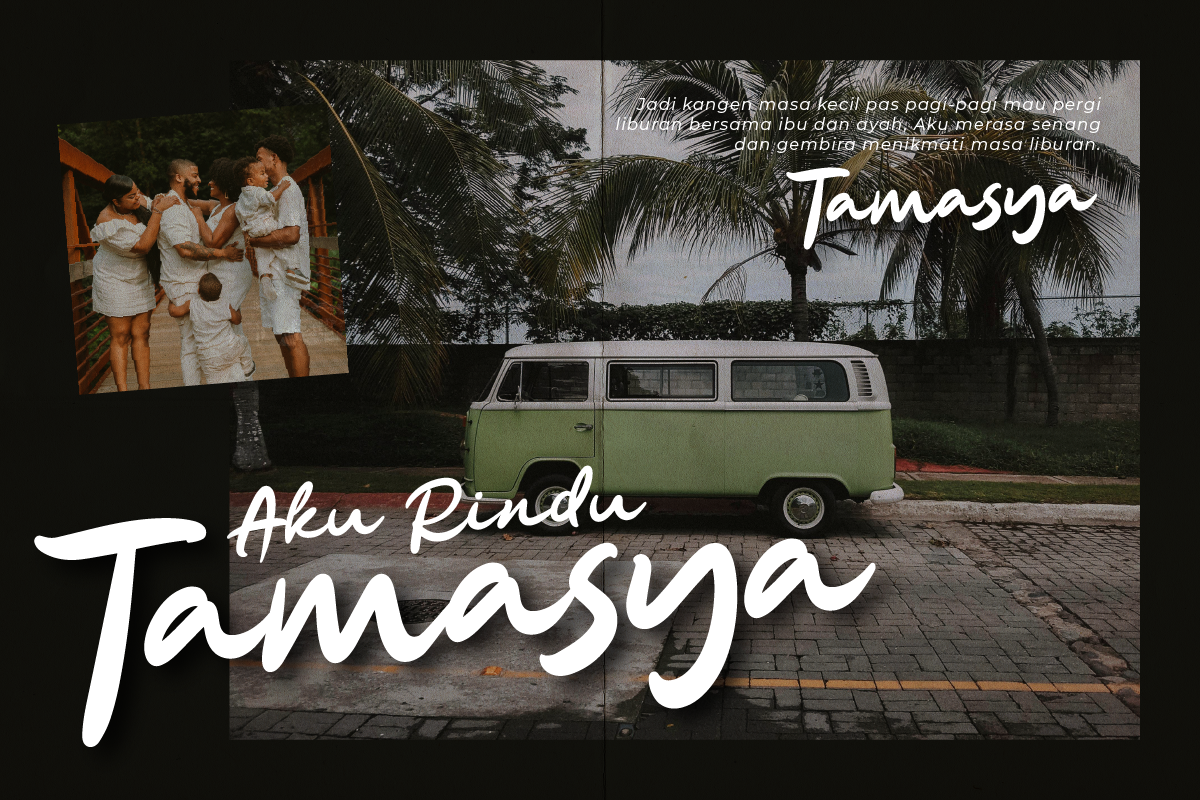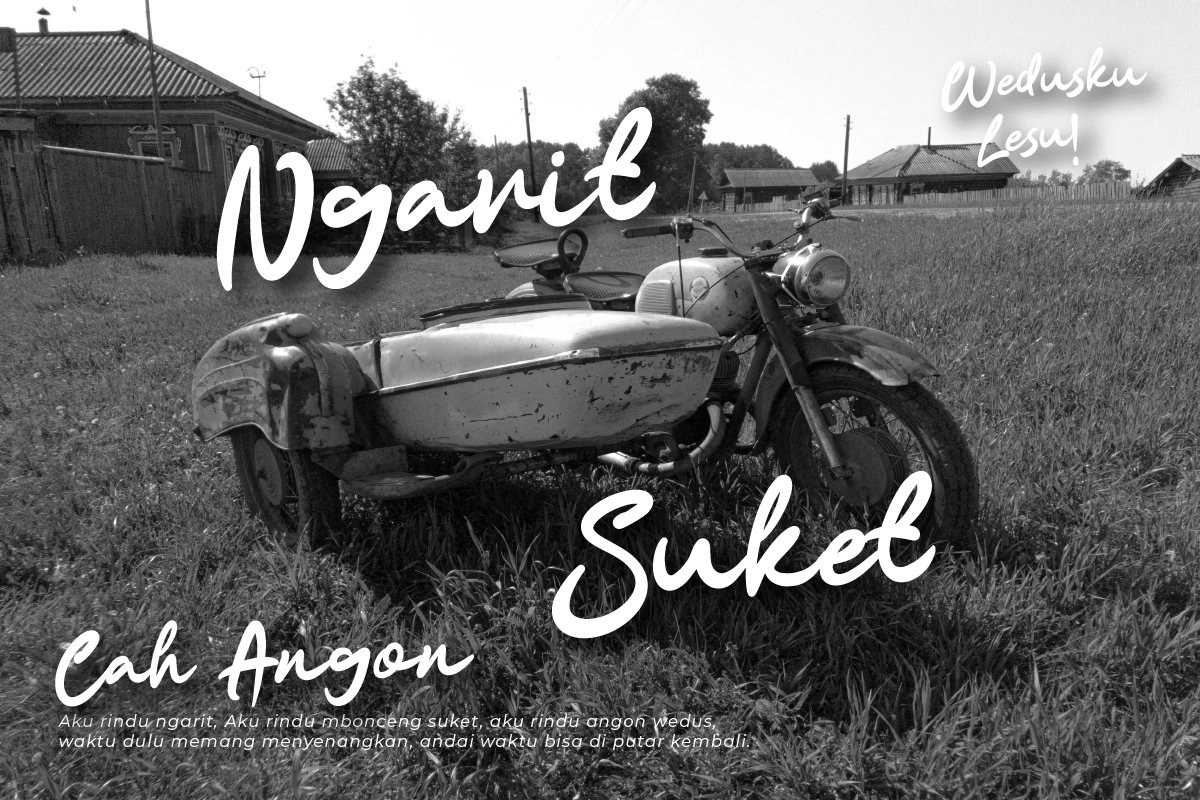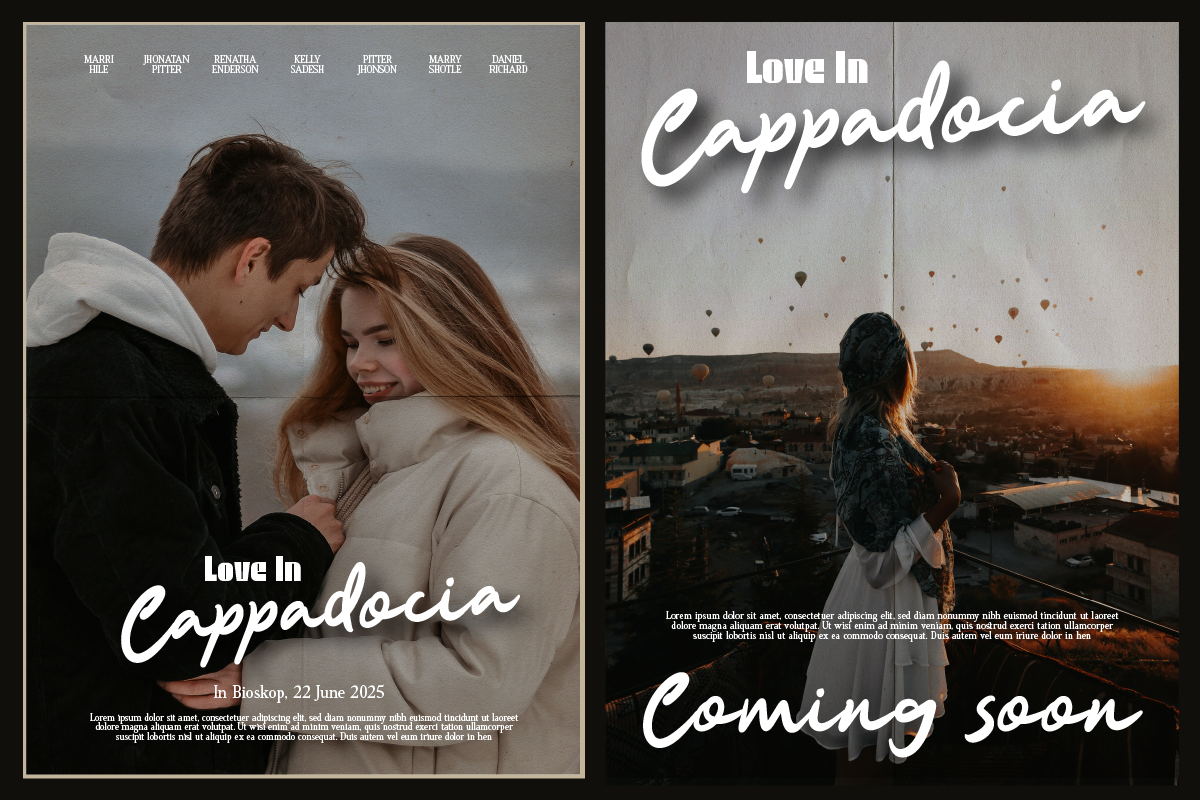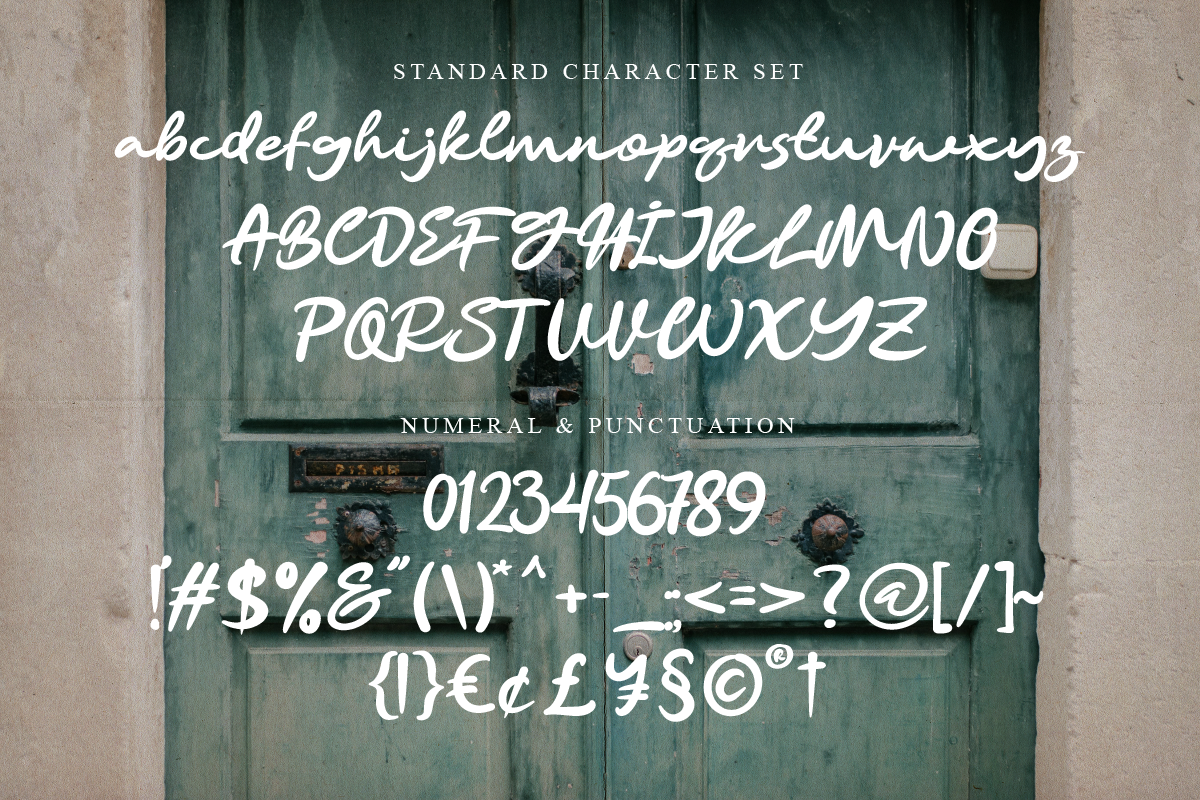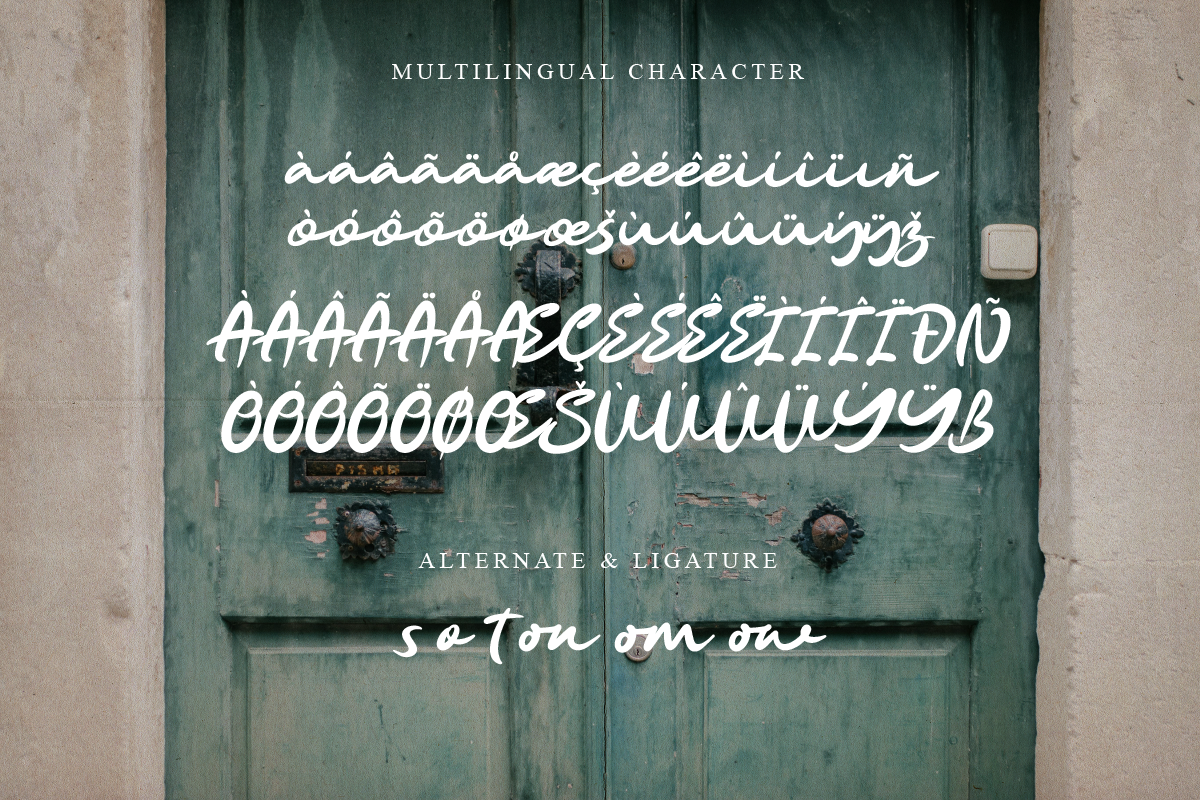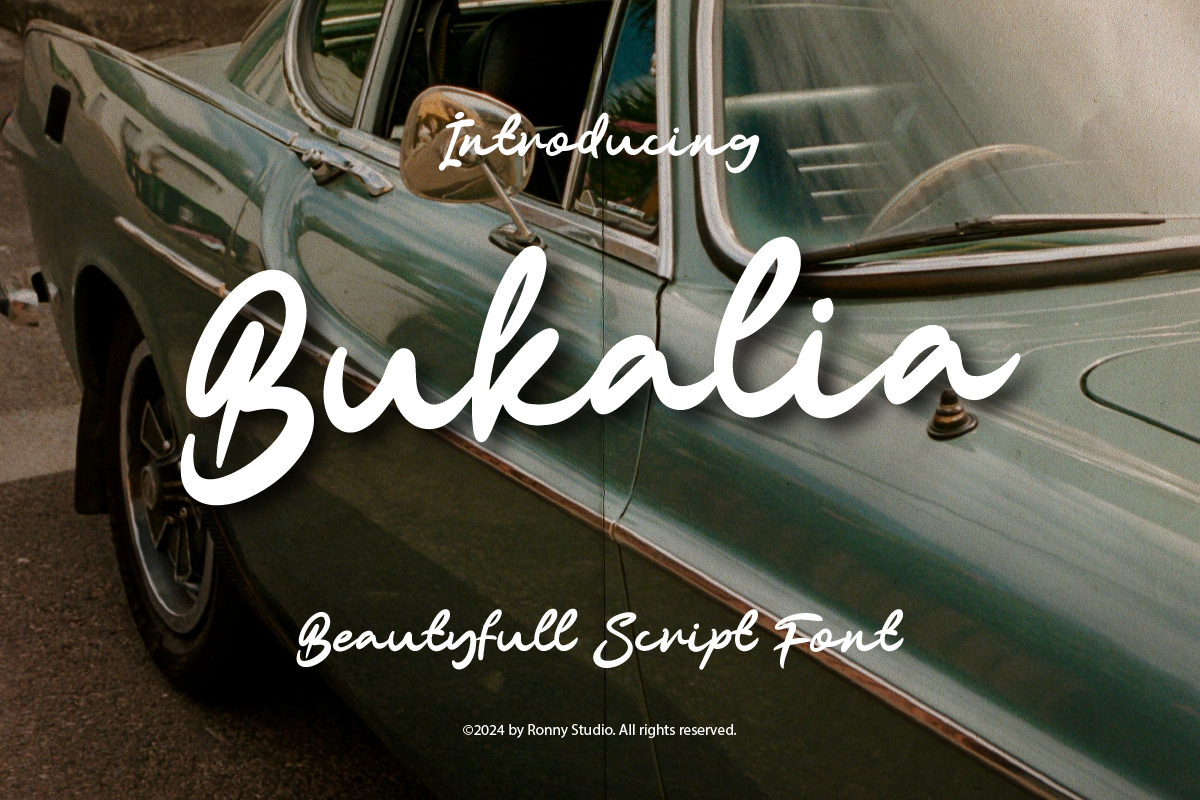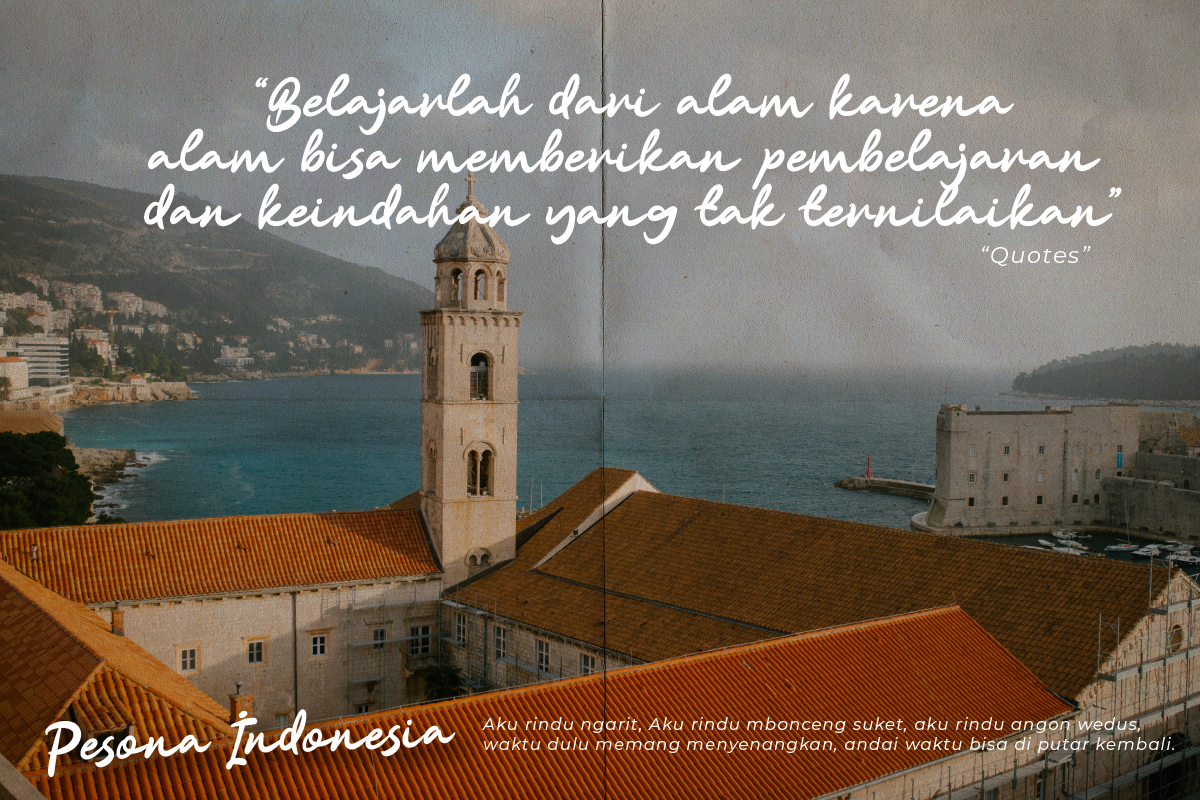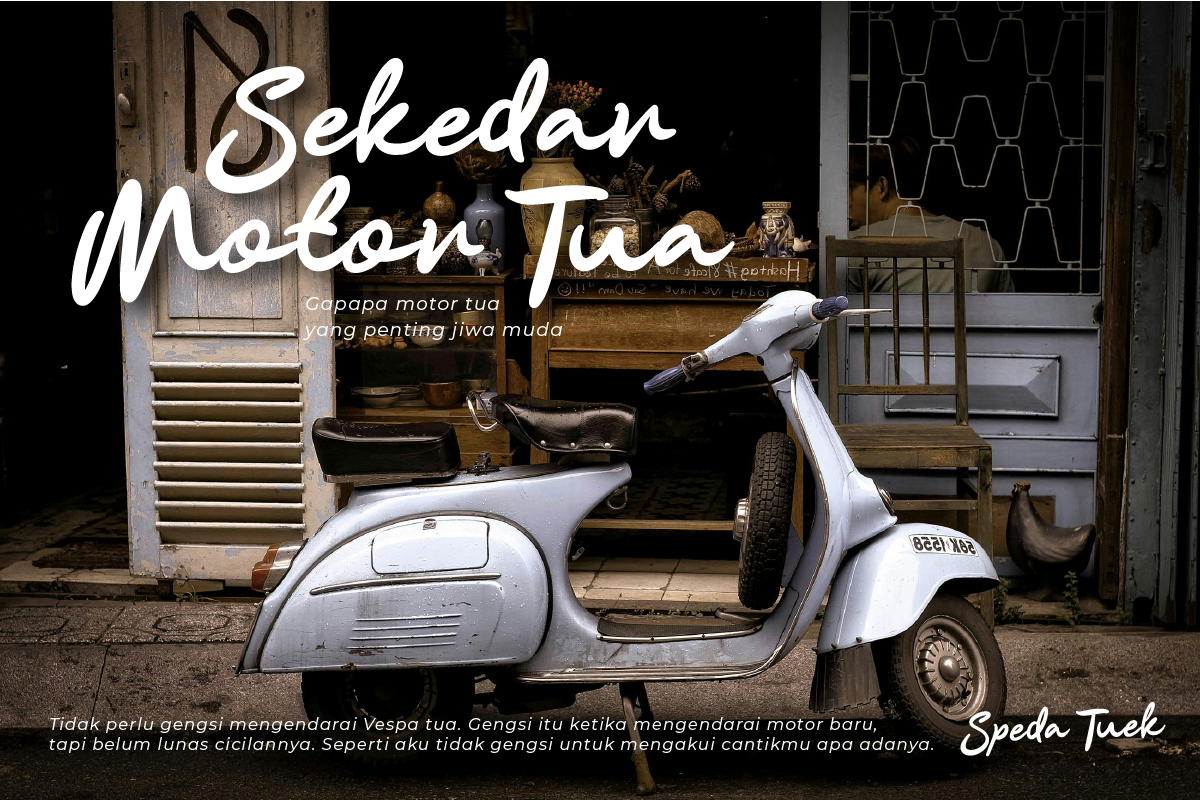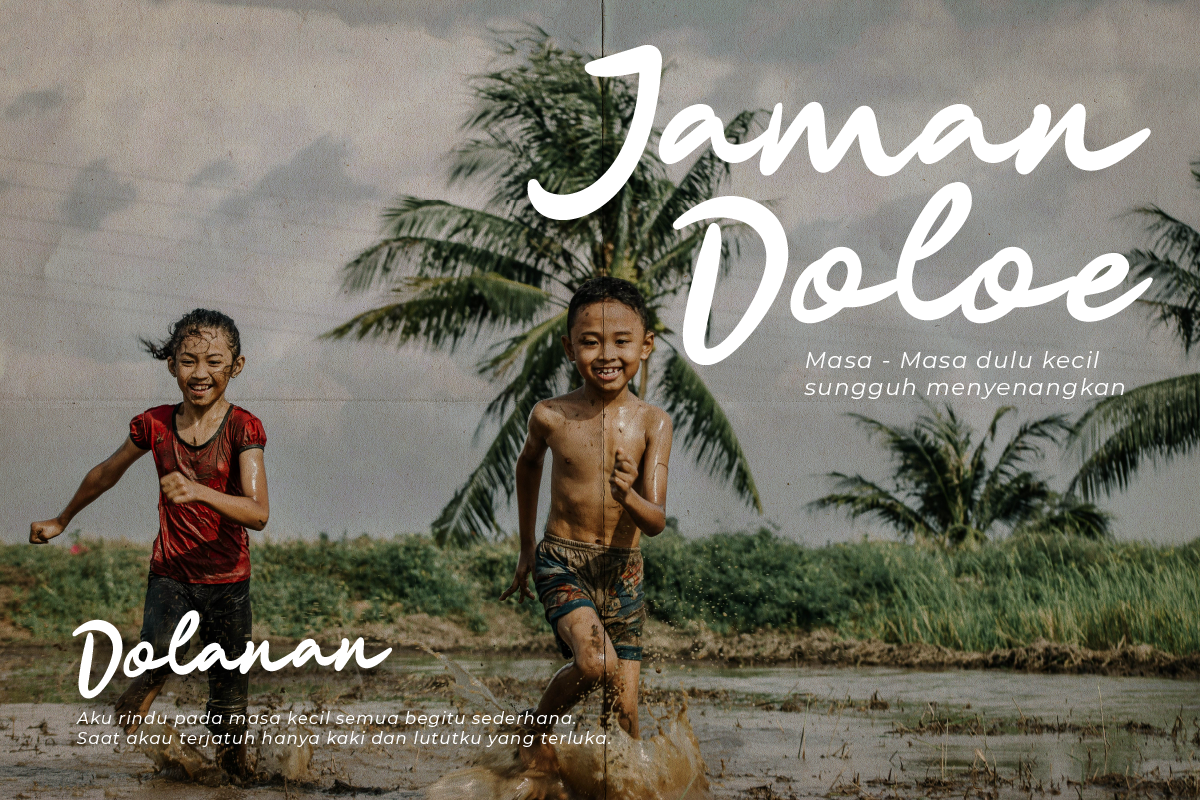
Bukalia Beautyfull Script Font
Introducing Bukalia – A Beautiful and Elegant Script Font
Bukalia is a graceful script font that exudes beauty and sophistication, making it perfect for a wide range of creative projects. Featuring smooth curves and flowing lines, Bukalia brings a natural, hand-lettered charm to invitations, branding, social media graphics, and more.
Designed with versatility and readability in mind, this font is ideal for adding a luxurious, elegant touch to any design. With multilingual support and a complete set of characters, Bukalia empowers you to express your creativity with ease.
✨ Key Features:
- Beautiful Script Style – Adds a touch of elegance and charm to any project.
- Smooth Flow & Hand-Lettered Look – Creates a natural and harmonious design.
- Versatile Usage – Perfect for invitations, logos, social media, branding, and more.
- Multilingual Support – Includes accented characters for international use.
🎨 Perfect For:
- Wedding invitations and stationery
- Elegant branding and logo designs
- Social media posts and quotes
- Fashion and lifestyle campaigns
- Event posters and flyers
- Editorial layouts and magazine titles
Add a graceful and sophisticated touch to your designs with Bukalia – a beautiful script font that captivates and inspires.